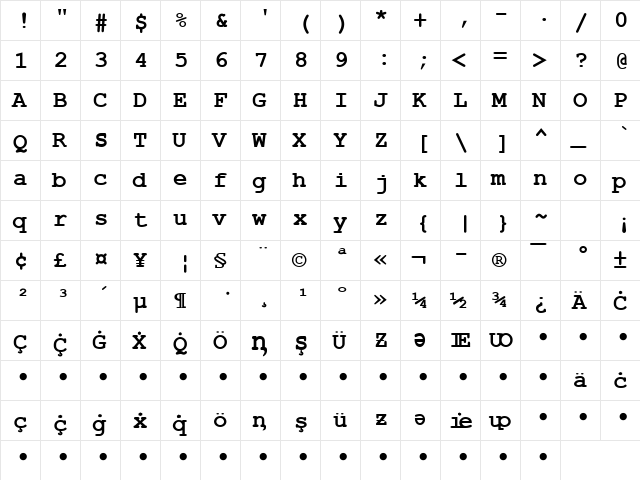
Noxchi Courier New Bold
Design Context for Noxchi Courier New Typeface
Noxchi Courier New brings the precise, column-aligned rhythm of monospaced typography to designs that value technical clarity and systematic order. Its bold stroke weight gives it real presence on the page.
Pro Tip: Use Noxchi Courier New with slightly increased line-height for extended reading — fixed-width spacing can feel dense in longer passages without extra breathing room.